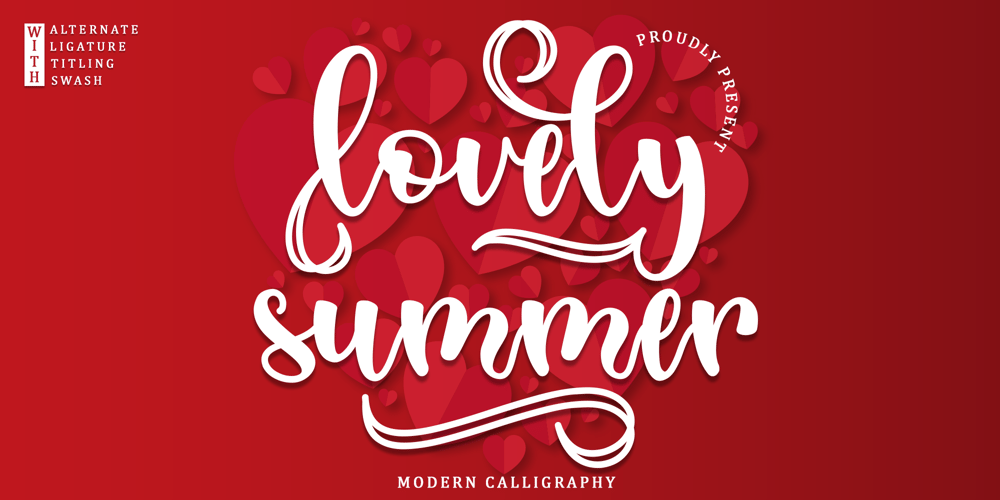
Lovely Summer Font Family was designed by Alif Ryan Zulfikar and published by Sakha Design. Lovely Summer contains 2 styles and family package options. Lovely Summer is a romantic and sweet calligraphy typeface with characters that dance along the baseline. It will add a luxury spark to any design project that you wish to create! This font is PUA encoded which means you can access all of the amazing glyphs and ligatures with ease!